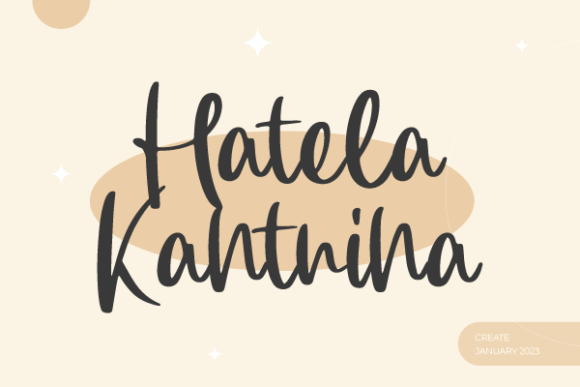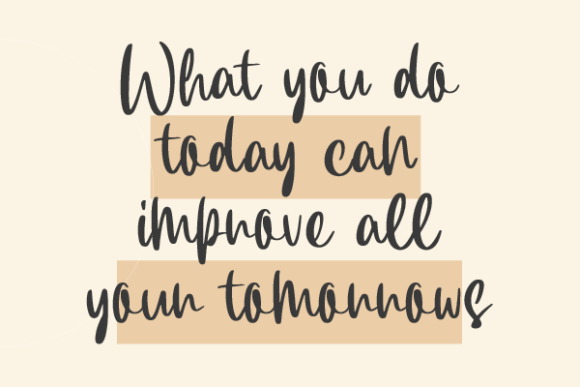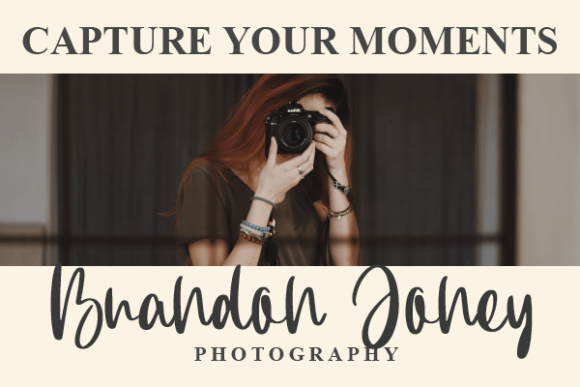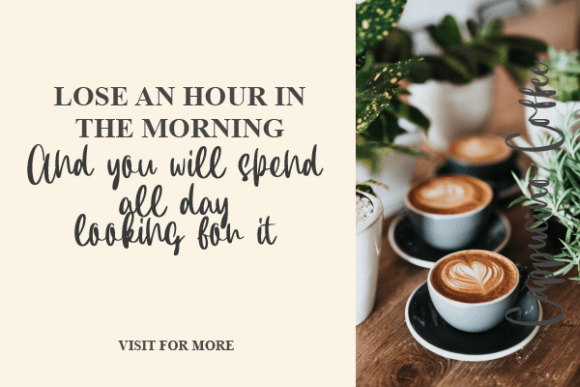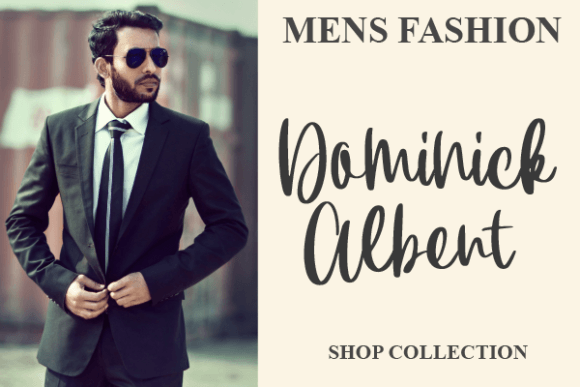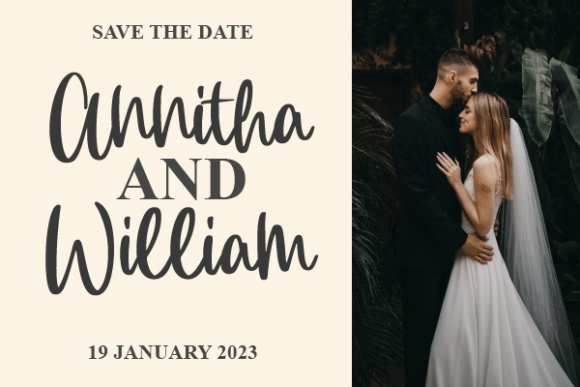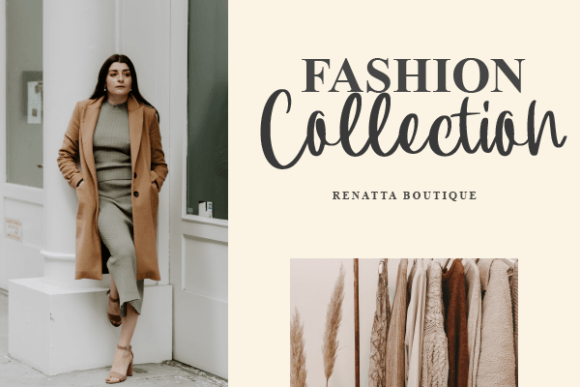
Unleashing Creativity with the Hatela Kantrina Font
You know that moment when a spark of creativity strikes, and you can’t wait to bring your idea to life? Maybe it’s a beautiful quote you want to share on Instagram, or a handmade card for a loved one. Whatever it is, you need a font that’s going to make it stand out – and that’s where the Hatela Kantrina Font comes in.
This magical script font is carefully crafted with a touch of elegance, making it perfect for a wide range of creative projects. Whether you’re a graphic designer, a calligraphy enthusiast, or simply someone who loves to DIY, the Hatela Kantrina Font is an invaluable tool in your creative arsenal. Its unique style and versatility make it a valuable addition to any design library.
Key Features of Hatela Kantrina Font
- Font Family: Hatela Kantrina
- Font Size: 1,024 glyphs, covering a wide range of languages and characters
- Unique Characteristics: Distinctive, hand-drawn style with intricate details and flourishes, making it ideal for creative and artistic applications
Designer Review: Hatela Kantrina Font
Overall, I think the Hatela Kantrina font has some great qualities, but also some areas for improvement. ✨ One of the things that stands out to me is the unique, hand-drawn feel of the font. It’s perfect for designers looking to add a touch of whimsy and personality to their projects.
Here are some of the things I like about the font:
- ✨ The font’s intricate details and textures give it a lot of character.
- ✨ It’s highly versatile and can be used for a wide range of applications, from logos to body text.
- ✨ The font is well-suited for use in digital and print media.
However, I also have some concerns about the font:
- ⚠️ The font can be difficult to read at smaller sizes, especially in digital applications.
- ⚠️ Some of the letterforms are a bit inconsistent, which can make the font feel uneven.
- ⚠️ The font’s complexity may make it difficult to pair with other fonts.
Overall, I think the Hatela Kantrina font is a great choice for designers who want to add a unique touch to their projects. However, it may not be the best choice for projects that require a lot of small text or a consistent, straightforward look.
Practical Application Guide for Hatela Kantrina Font
Tips for Getting the Most Out of Hatela Kantrina Font
For optimal results, use Hatela Kantrina Font in bold or italic styles to add emphasis to your text.
Experiment with different font sizes and combinations to achieve a unique visual effect.
Use Hatela Kantrina Font for titles, headings, and other emphasis-worthy text to create a striking visual impact.
Use Hatela Kantrina Font for:
1. Creative projects, such as art, design, and photography.
2. Branding and marketing materials, such as logos and brochures.
Alternatives to Hatela Kantrina Font
Playfair Display is an elegant, luxurious serif font ideal for high-end designs, such as luxury brands, magazines, and fine art. It’s perfect for creating a sophisticated and refined atmosphere.
Comparison: While Hatela Kantrina Font has a more unique and exotic feel, Playfair Display is more traditional and timeless. Playfair Display is better suited for designs that require a sense of luxury and sophistication, whereas Hatela Kantrina Font is more versatile and can be used in a wider range of designs.
Great Vibes is a modern, elegant script font perfect for designs that require a touch of sophistication and elegance. It’s ideal for weddings, invitations, and other high-end events.
Comparison: Great Vibes has a more modern and sleek feel compared to Hatela Kantrina Font, which has a more vintage and exotic feel. Great Vibes is better suited for designs that require a sense of modernity and elegance, whereas Hatela Kantrina Font is more versatile and can be used in a wider range of designs.
Q: What is the font size range and recommended usage for the Hatela Kantrina Font?
The Hatela Kantrina Font is designed for use at font sizes ranging from 12 to 72 points. For optimal legibility, we recommend using the font at sizes between 14 and 36 points. This font is suitable for headings, titles, and short paragraphs of text.